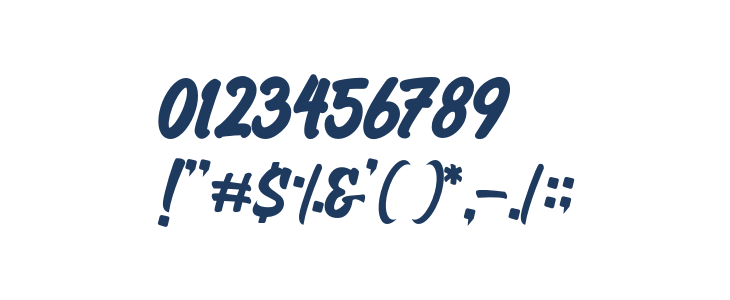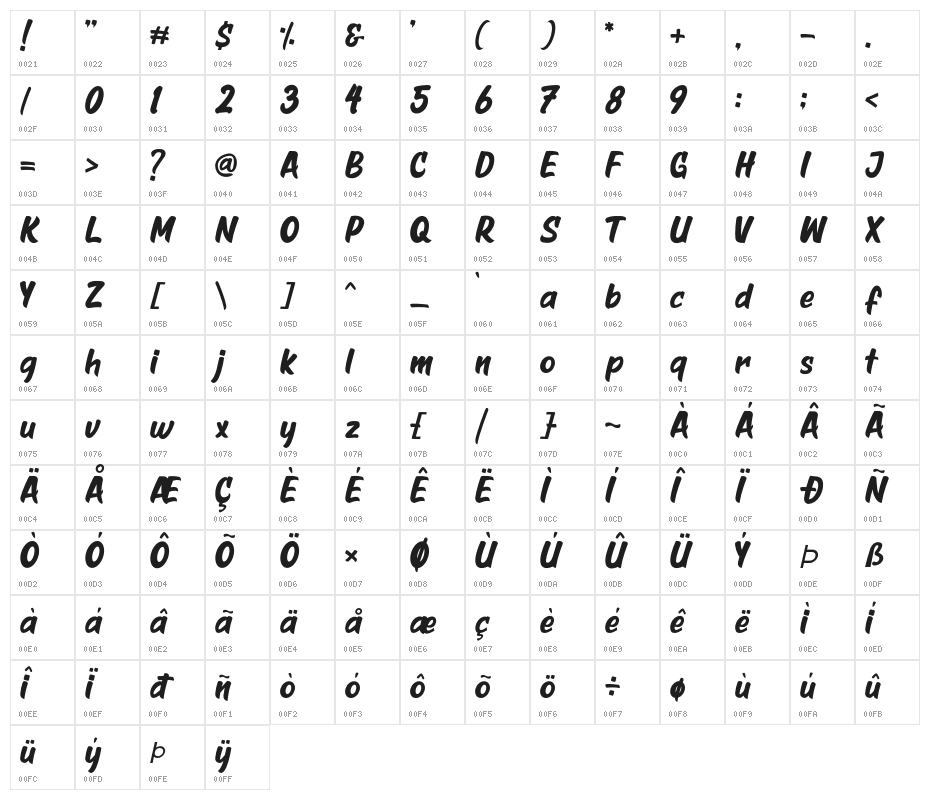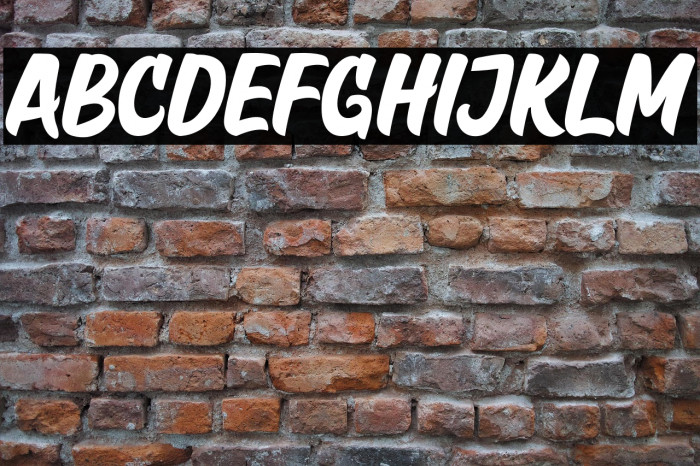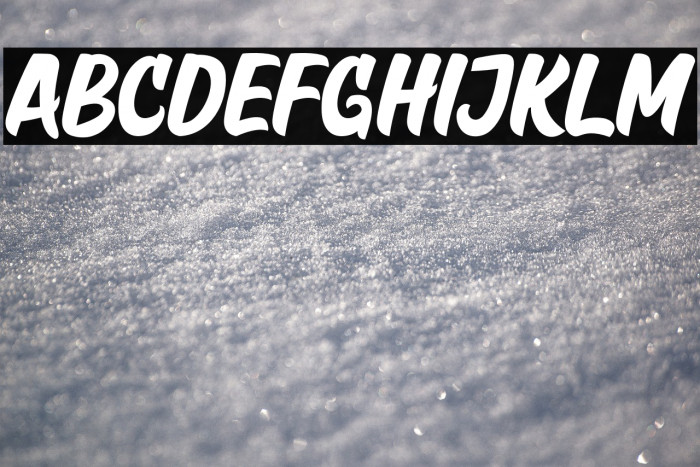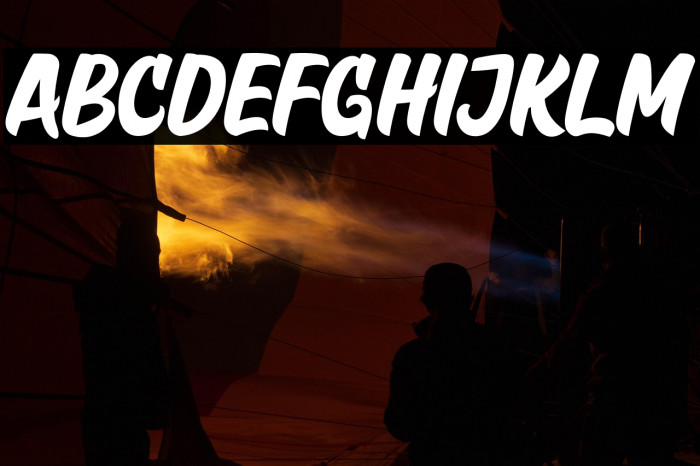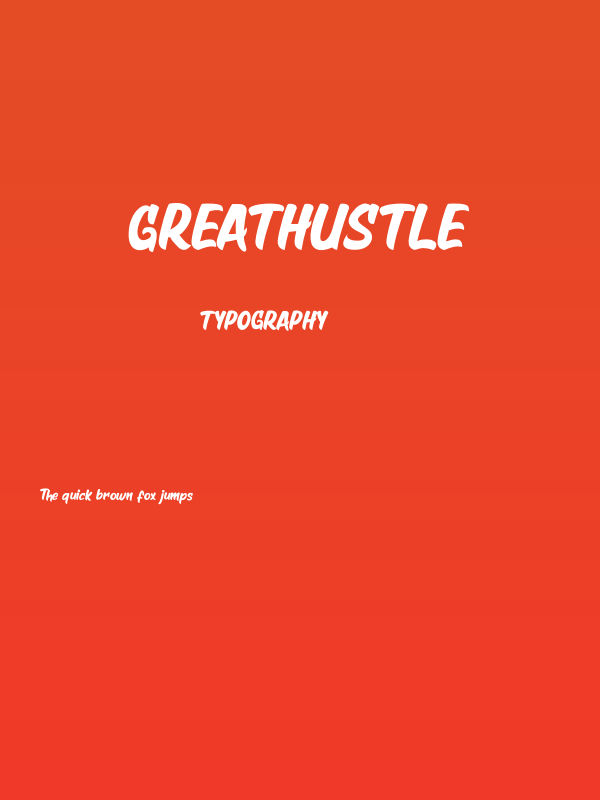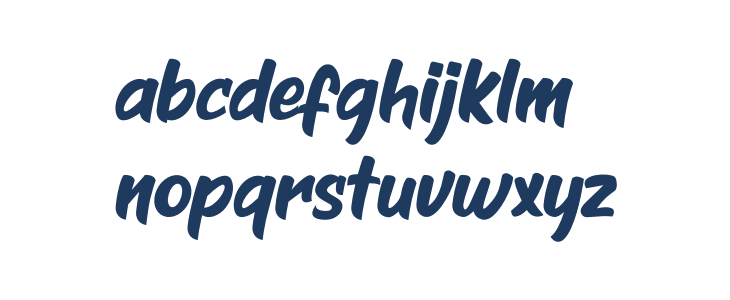
GreatHustle Font
GreatHustle Description
This font features a bold and dynamic script style, characterized by its thick, flowing strokes and a sense of movement. The letters are closely connected, creating a cohesive and energetic appearance. The uppercase and lowercase letters maintain a consistent style, with rounded edges and a slight slant, enhancing the font's lively and informal feel. The numerals and special characters are designed to match the overall aesthetic, ensuring uniformity across all elements. This font is ideal for projects that require a personal touch or a sense of spontaneity.